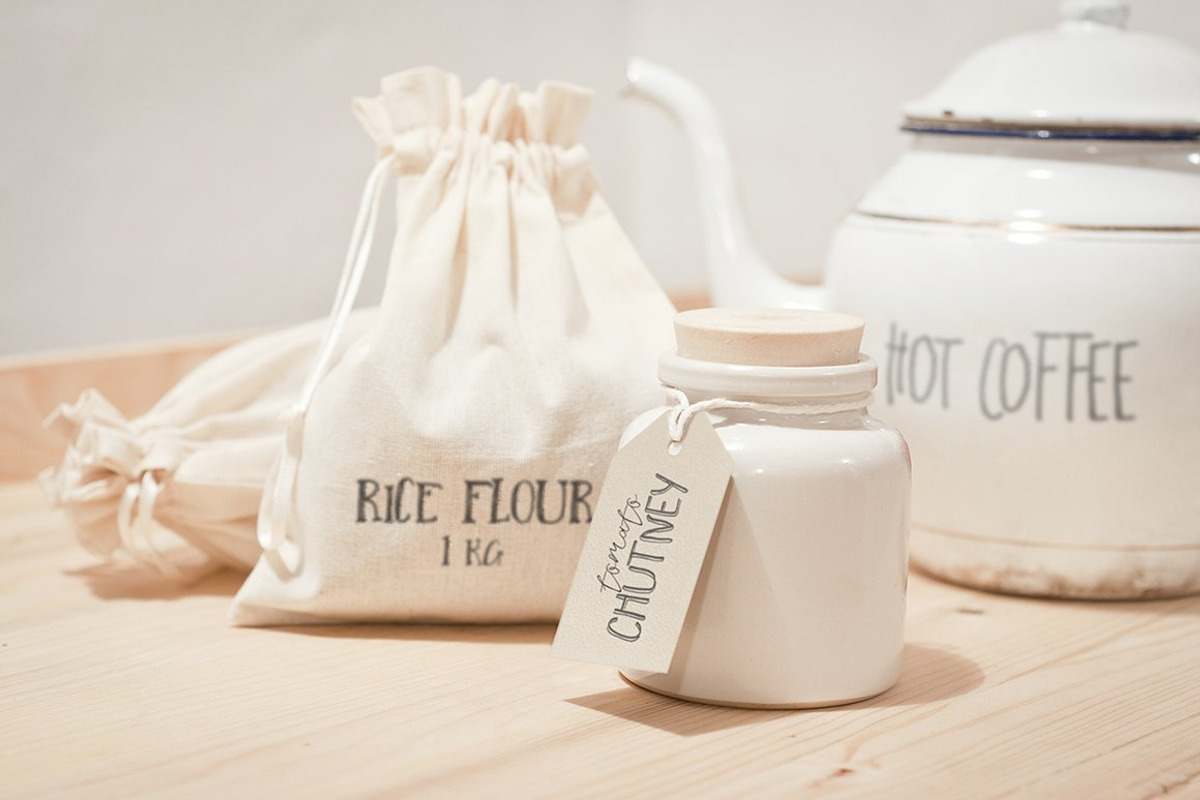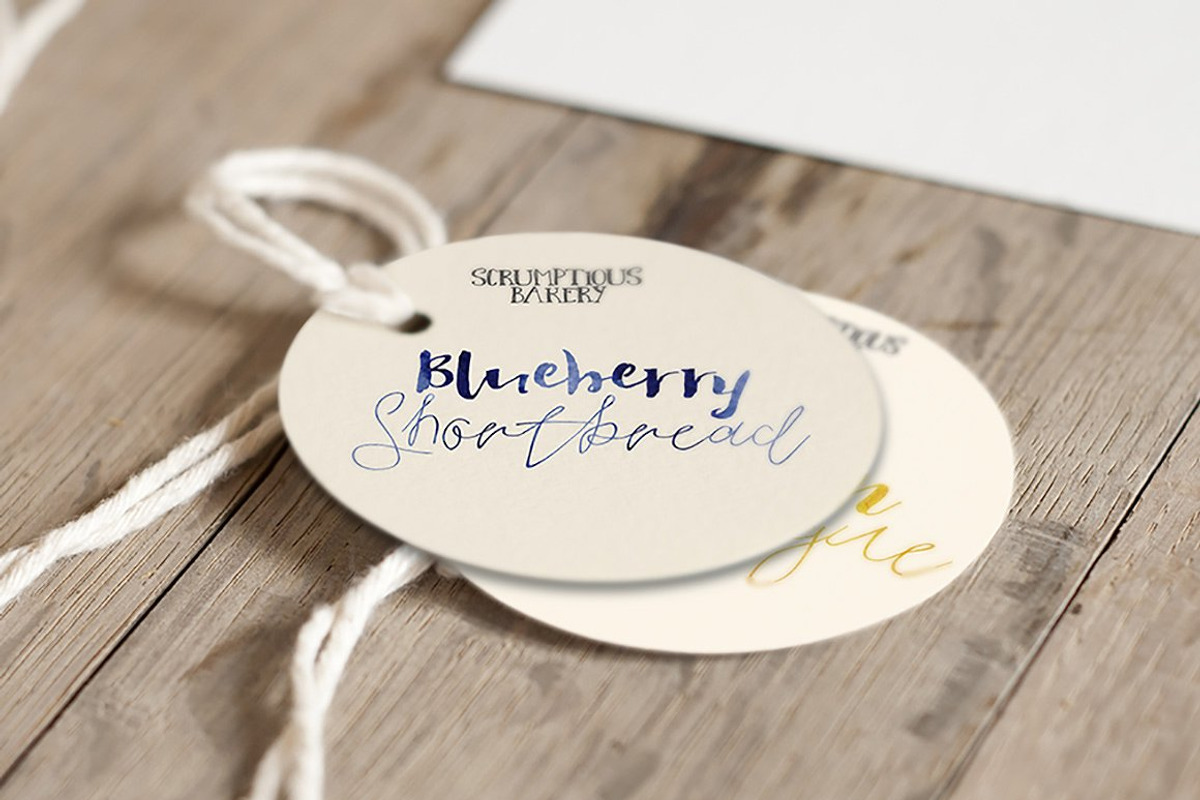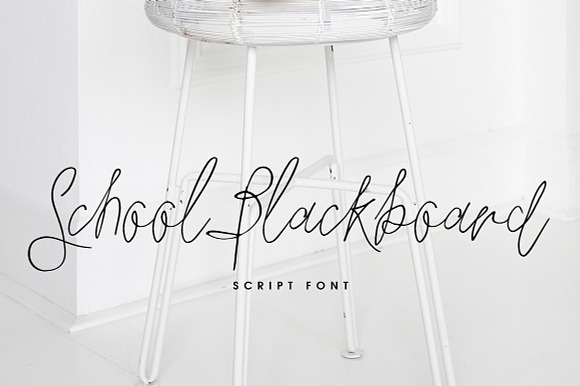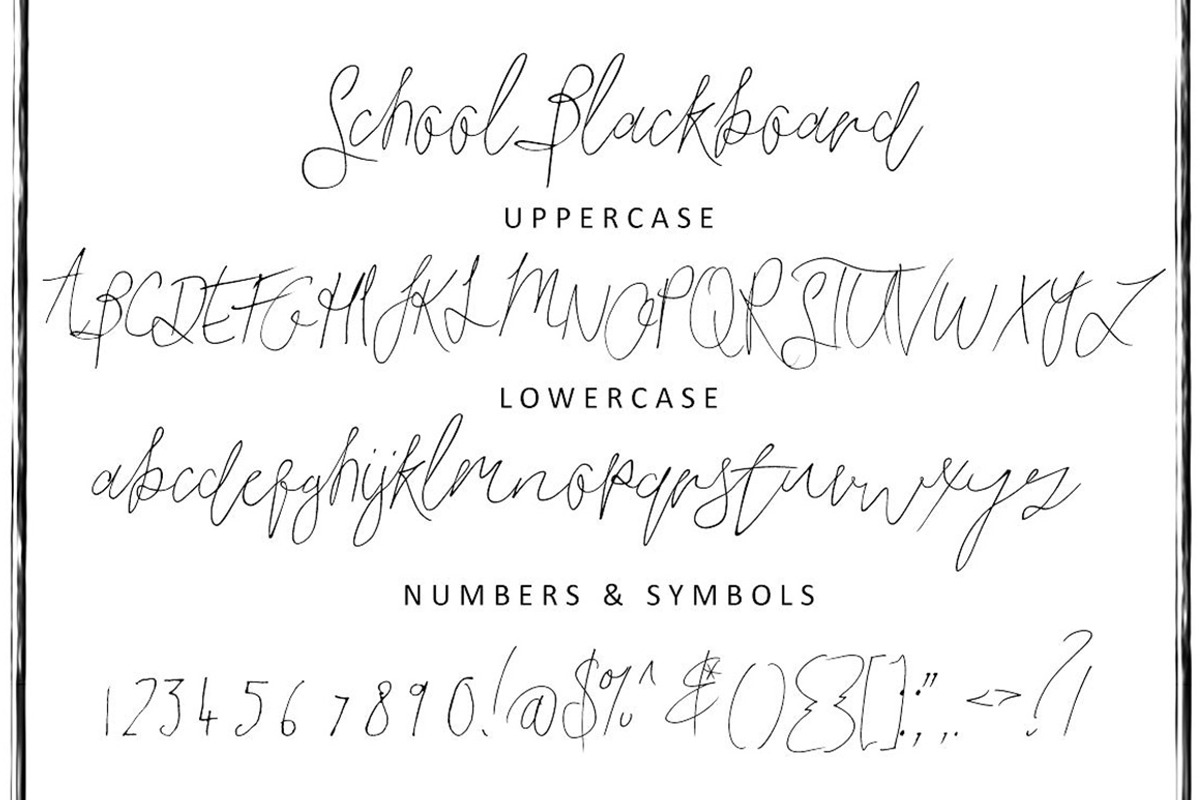
School Blackboard Font
This is School Blackboard. A unique hand written script font. This font is part of the Big Bunch of Fonts Volume 1 here
School Blackboard Font by Creativeqube Design fits naturally into Branding, posters, packaging, typography.